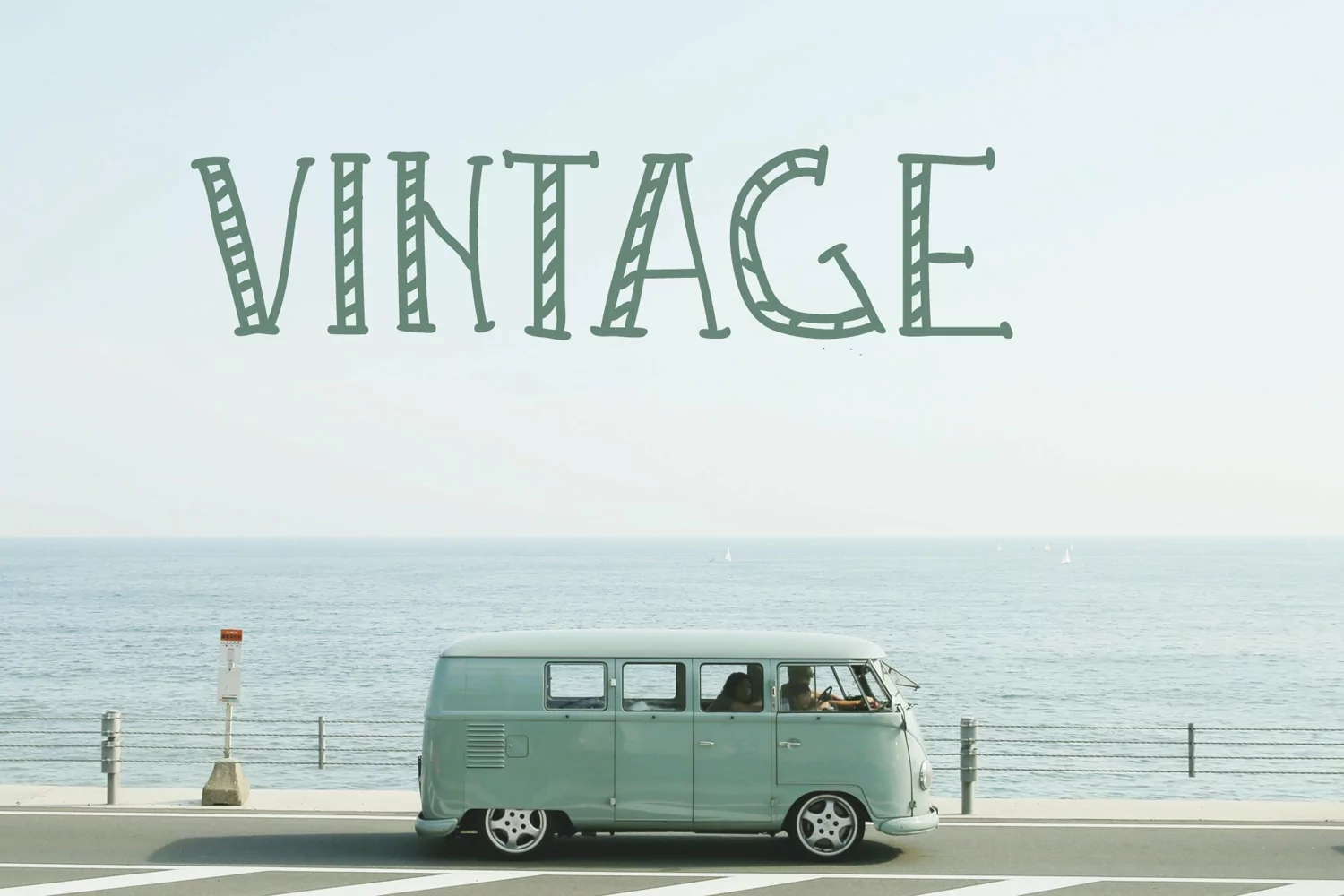
Bar Beach is handwritten casual typeface.
Bar Beach is a cool and simple display font. It will look stunning on any poster flyer or print.
Great for wedding invitations, quotes, Instagram posts, logos and branding, vintage posters, restaurant menus, greeting cards, T-Shirts ..